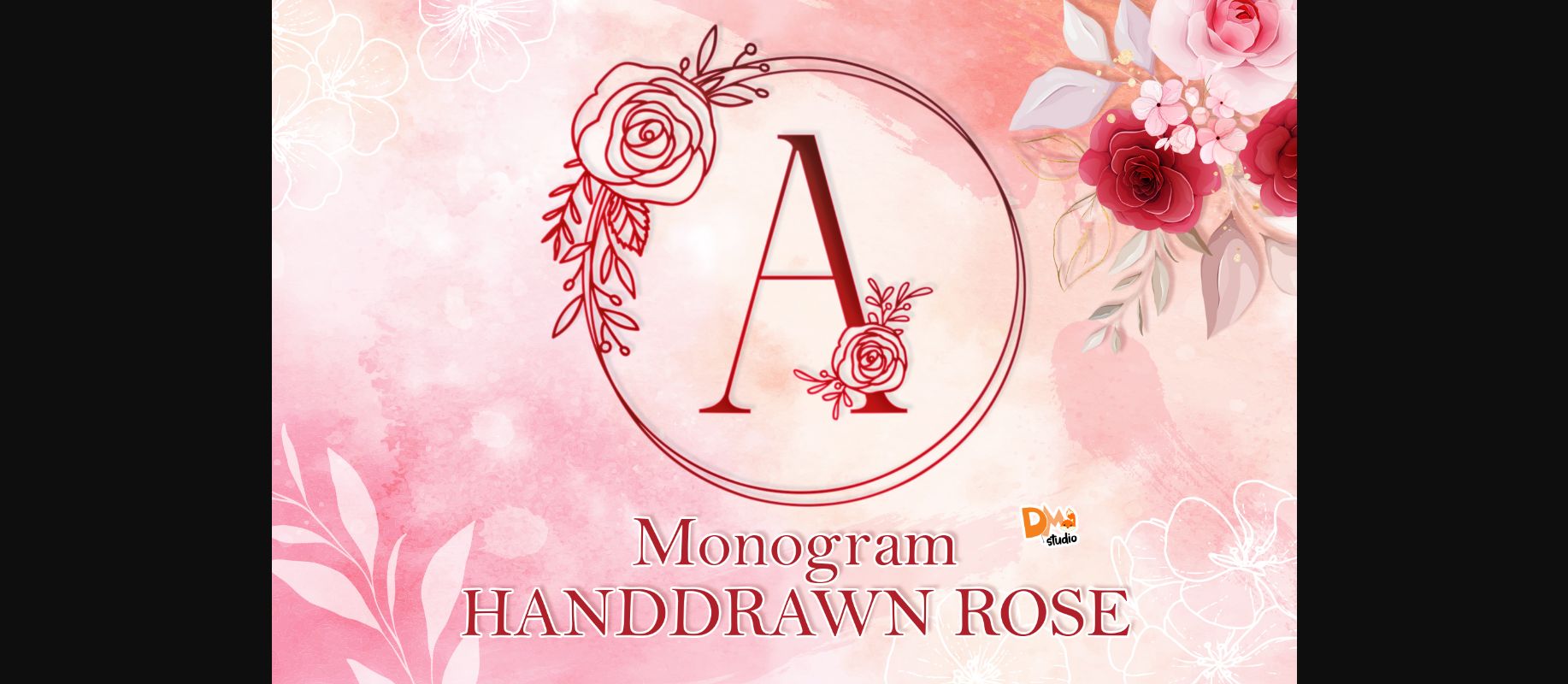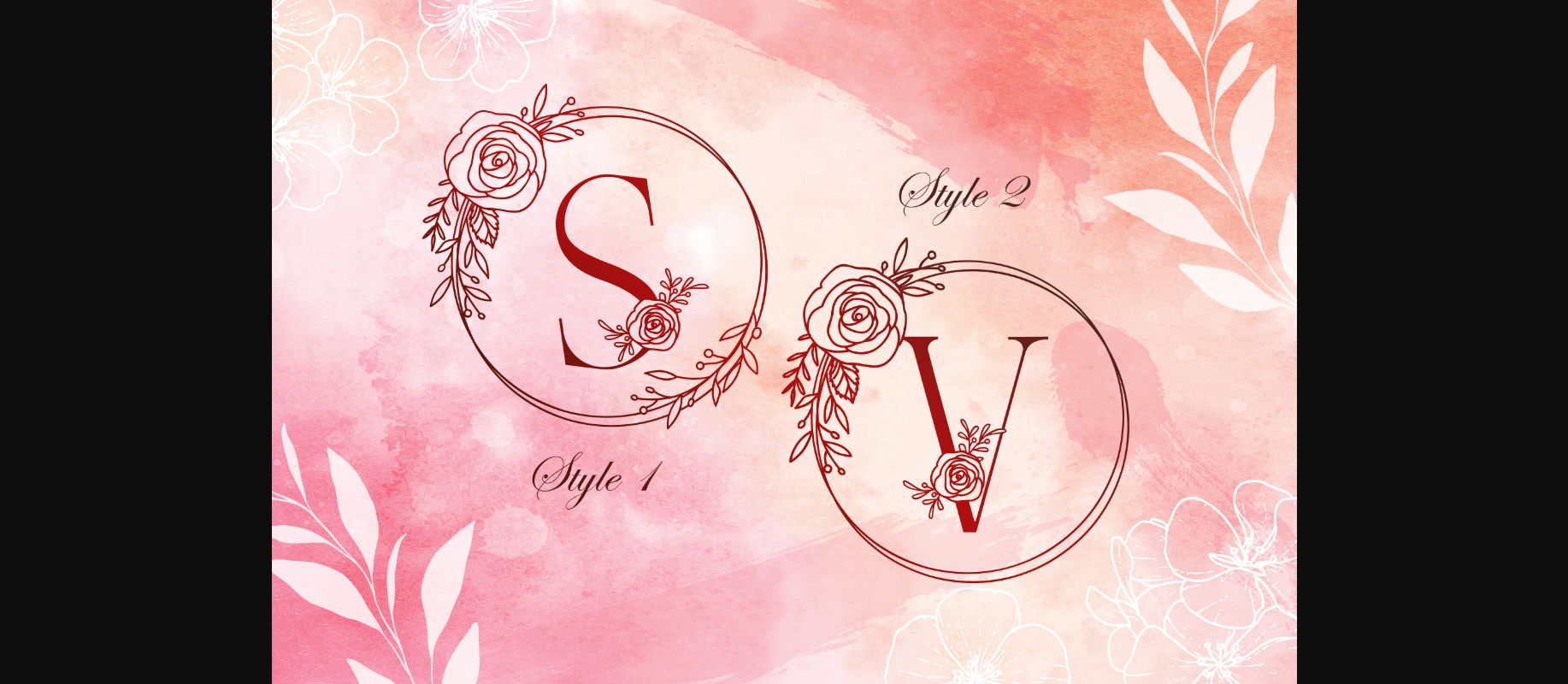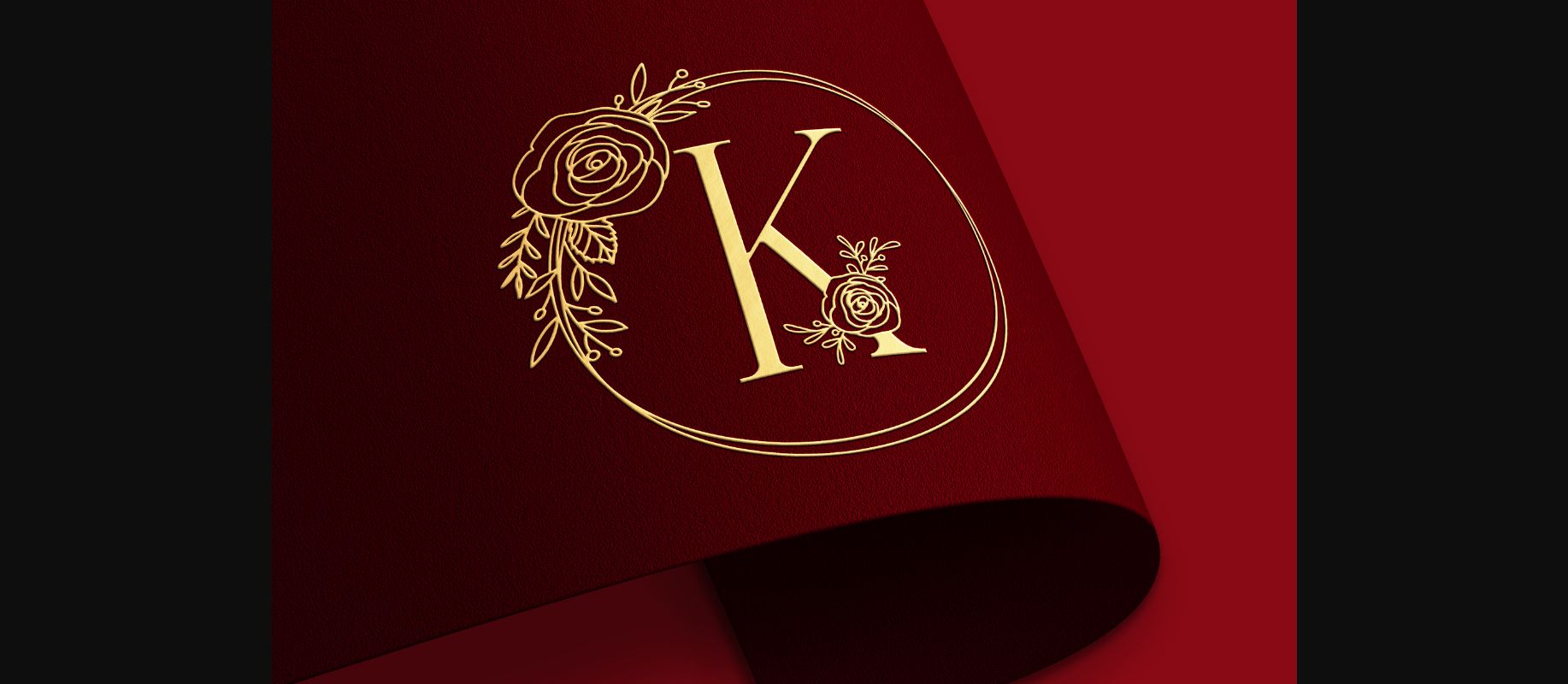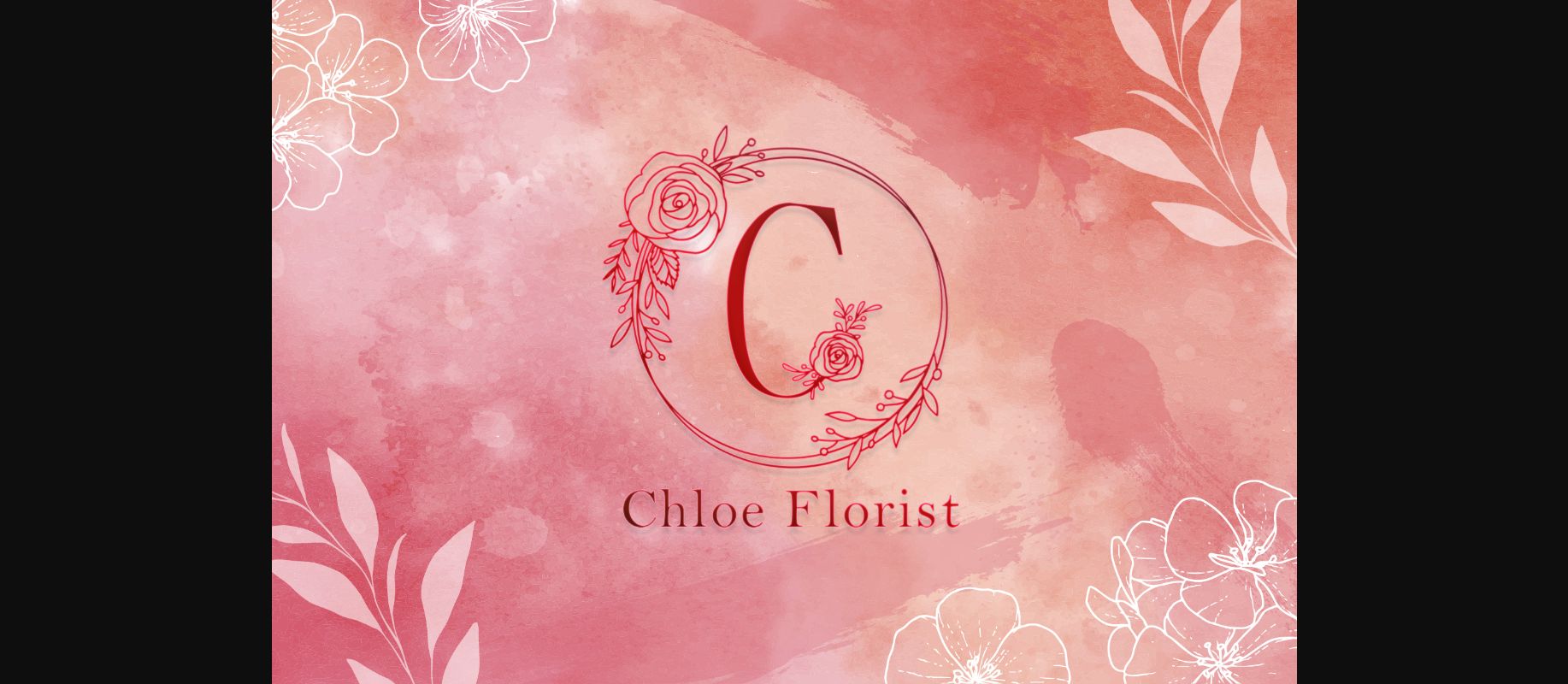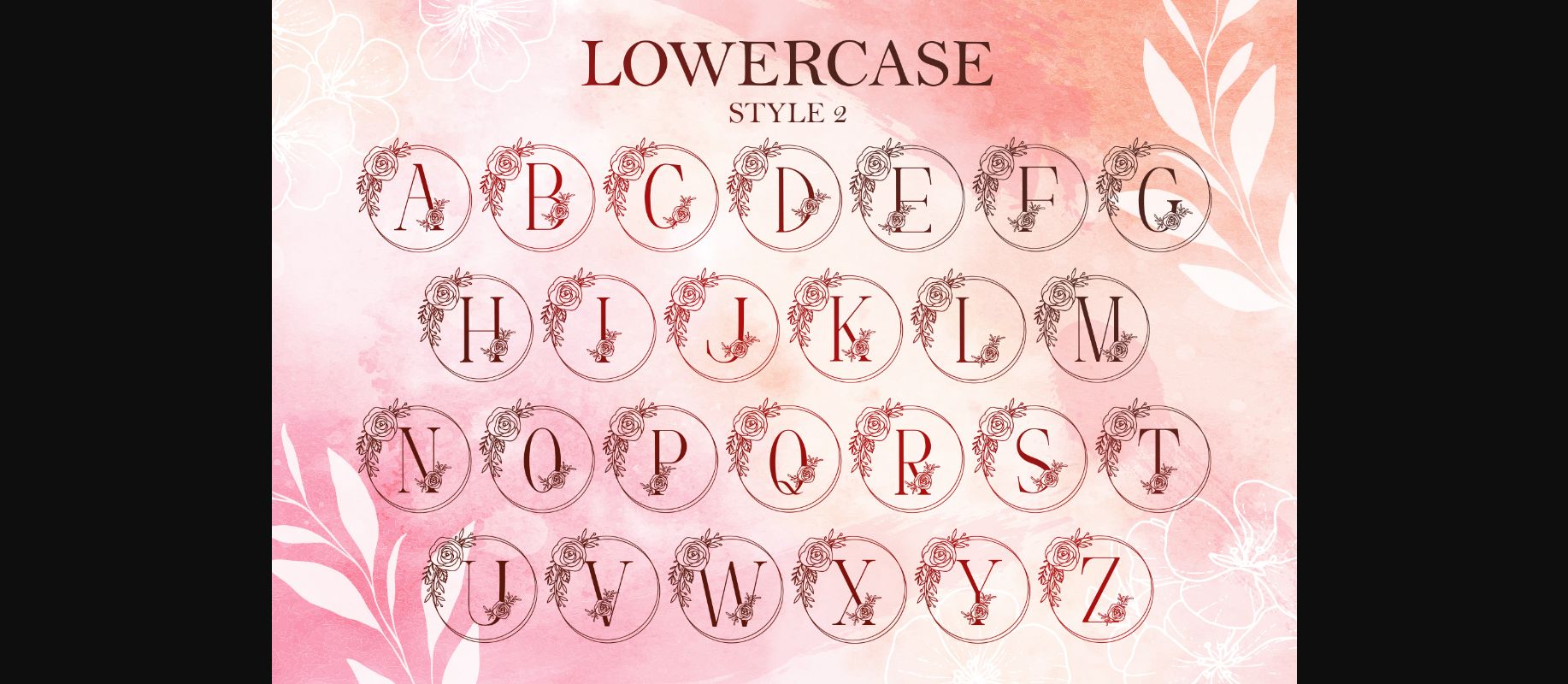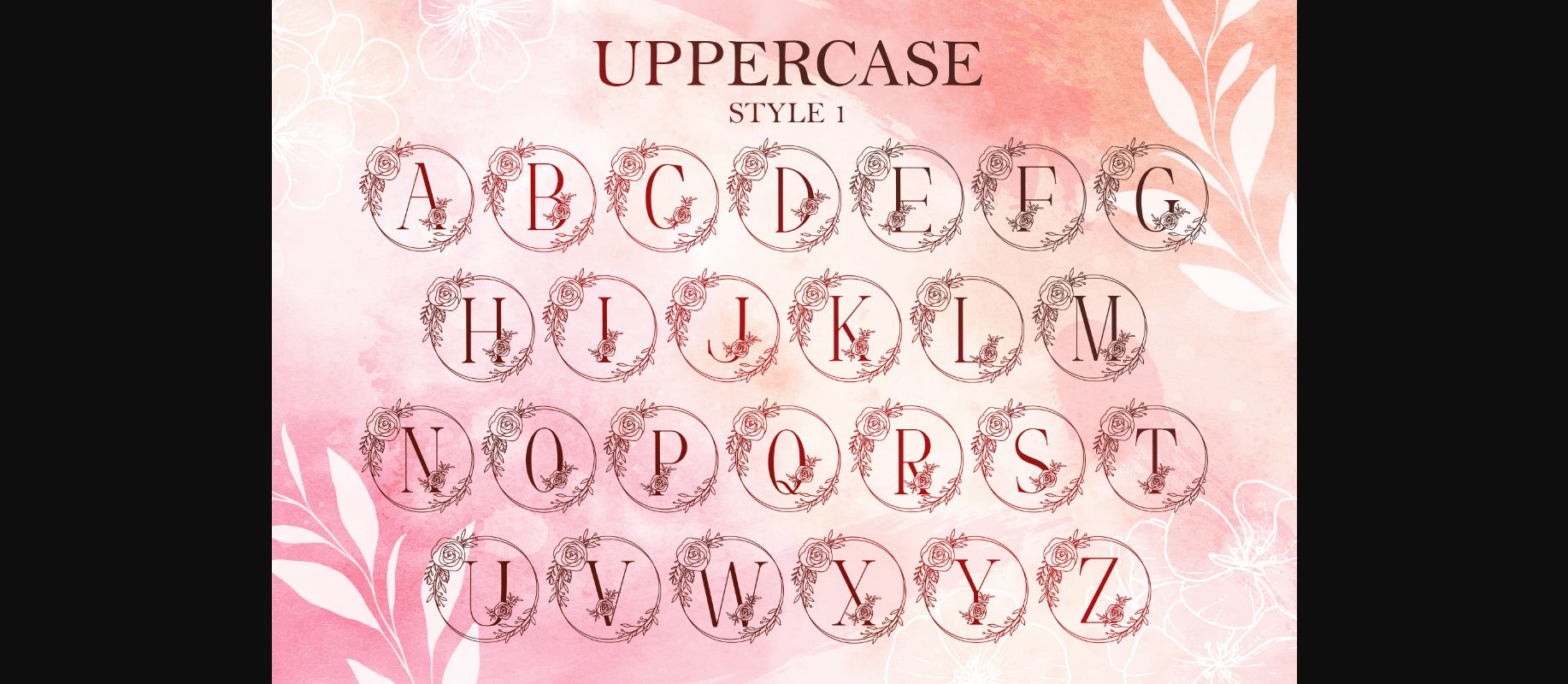
Monogram Handdrawn Rose Font
About Monogram Handdrawn Rose Font
Monogram Handdrawn Rose is a sweet decorative font, featuring a lovely flower ornament. Fall in love with its authentic feel and use it to create gorgeous wedding invitations, beautiful stationary art, eye-catching social media posts, and cute greeting cards.